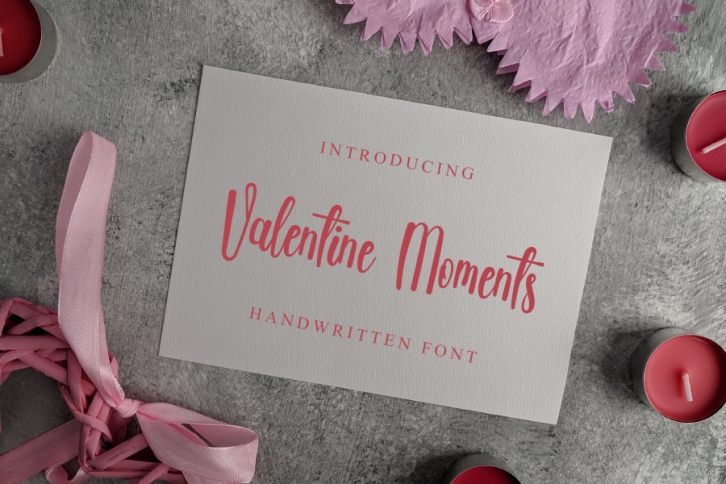
Valentine Moments is a casual handwritten font, carefully designed to become a true favorite. It maintains its classy calligraphic influences while feeling contemporary and fresh.